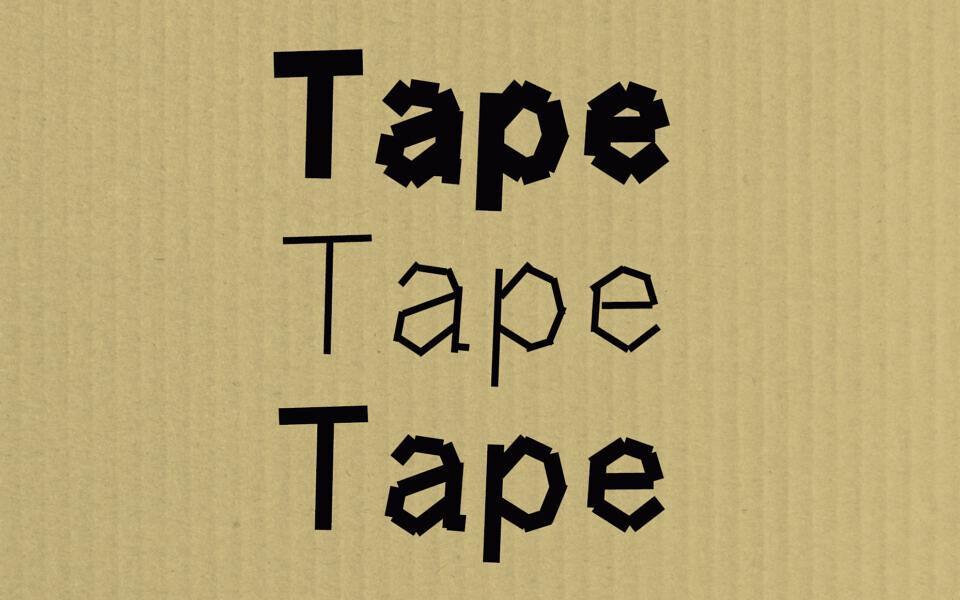
Tape is an old experiment (designed back in 2016) that only uses straight, unconnected strokes (like pieces of scotch tape) to form all possible shapes needed on the glyphs of a typeface. The result is rough and uncanny when used in large text sizes, but works (surprisingly well) in smaller text sizes, adding a touch of weirdness in otherwise boring pieces of text.